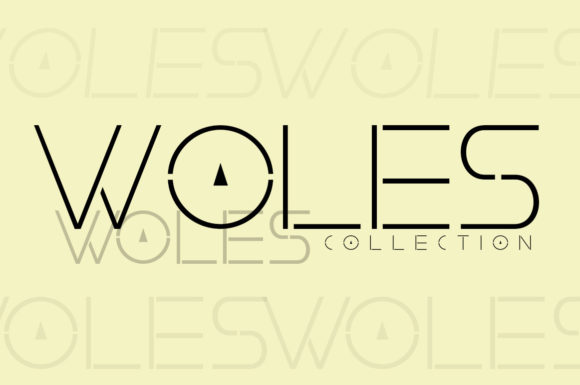
Welcome to the world of Woles Collection Font, where creativity meets elegance! Step into a realm of artistic expression as we showcase this stunning display font, crafted to captivate and inspire.
Picture yourself holding the key to unlock a world of limitless possibilities. Woles Collection Font is a masterpiece, meticulously designed to make your designs shine. Its delicate and slender strokes are like a gentle whisper, inviting you to explore a universe of visual delight.
With its inherent charm, this font exudes sophistication and grace, making it the perfect choice for creating captivating web designs and business cards that leave a lasting impression. Its thin lettering brings a touch of exclusivity, while its unique design adds a spark of creativity, setting your projects apart from the ordinary.
But Woles Collection Font is more than just a beautiful face. Its versatility makes it a true asset in any designer's toolkit. Its ability to elevate even the simplest of designs is truly remarkable. Whether you're creating logos, advertisements, or social media graphics, this font will add a touch of finesse that will make your creations stand out from the crowd.
So why settle for ordinary when you can have extraordinary? Dive into the world of Woles Collection Font and experience the power of a font that not only captivates the eyes but also captivates the heart. Let your creativity soar, unleash your imagination, and let this font be your guide on a journey of visual storytelling like never before.